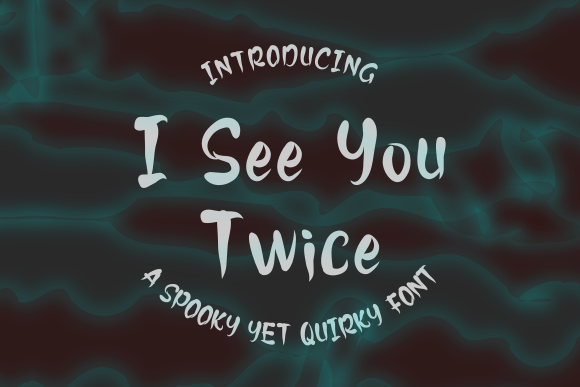
Dive into the realm of the extraordinary with I See You Twice Font, a script font that dances with individuality and flair. Its enchanting characters bring life to your creative endeavors, adding a touch of whimsy and uniqueness to every project.
Unleash your creativity and let your imagination soar with I See You Twice Font. Its playful curves and lively strokes capture the essence of Halloween, the perfect companion for your spooky designs, invitations, and party decorations. Make a lasting impression with your Halloween-themed projects, leaving your audience spellbound.
Beyond Halloween, I See You Twice Font shines as a versatile tool for a myriad of creative projects. Whether you're designing logos, branding materials, or crafting social media content, this font effortlessly elevates your designs. Its adaptability knows no bounds, making it a must-have for any creative toolbox.
Embrace the spirit of self-expression and authenticity with I See You Twice Font. Its vibrant energy and distinctive style allow your personality to shine through. Whether you're a seasoned designer or just starting your creative journey, this font will empower you to make a statement and leave an unforgettable mark.
Don't miss out on the opportunity to add a spark of magic to your creative pursuits. I See You Twice Font awaits you, ready to transform your designs into captivating masterpieces. Embrace its charm, let your creativity flow, and embark on an artistic adventure like never before.